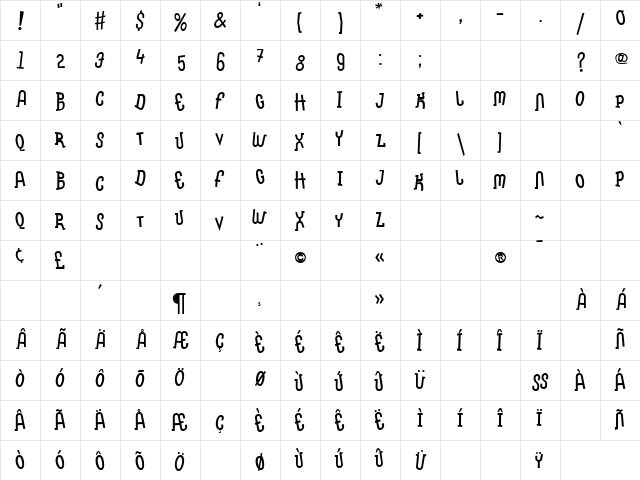
LTMethod Boiled Boiled
Design Context for LTMethod Boiled Typeface
LTMethod Boiled is a composed and adaptable typeface that performs quietly and consistently across a wide range of design contexts.
Pro Tip: Pair LTMethod Boiled with a font of contrasting weight or personality to build a more expressive typographic hierarchy.